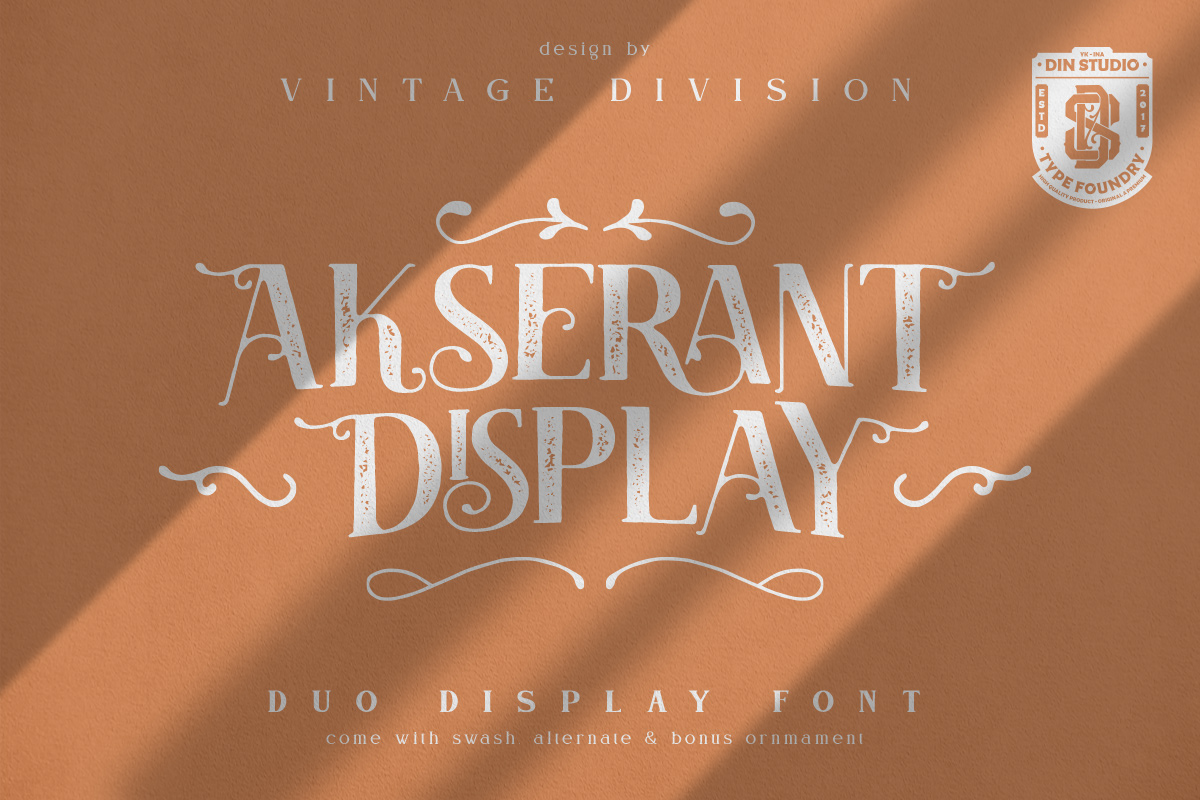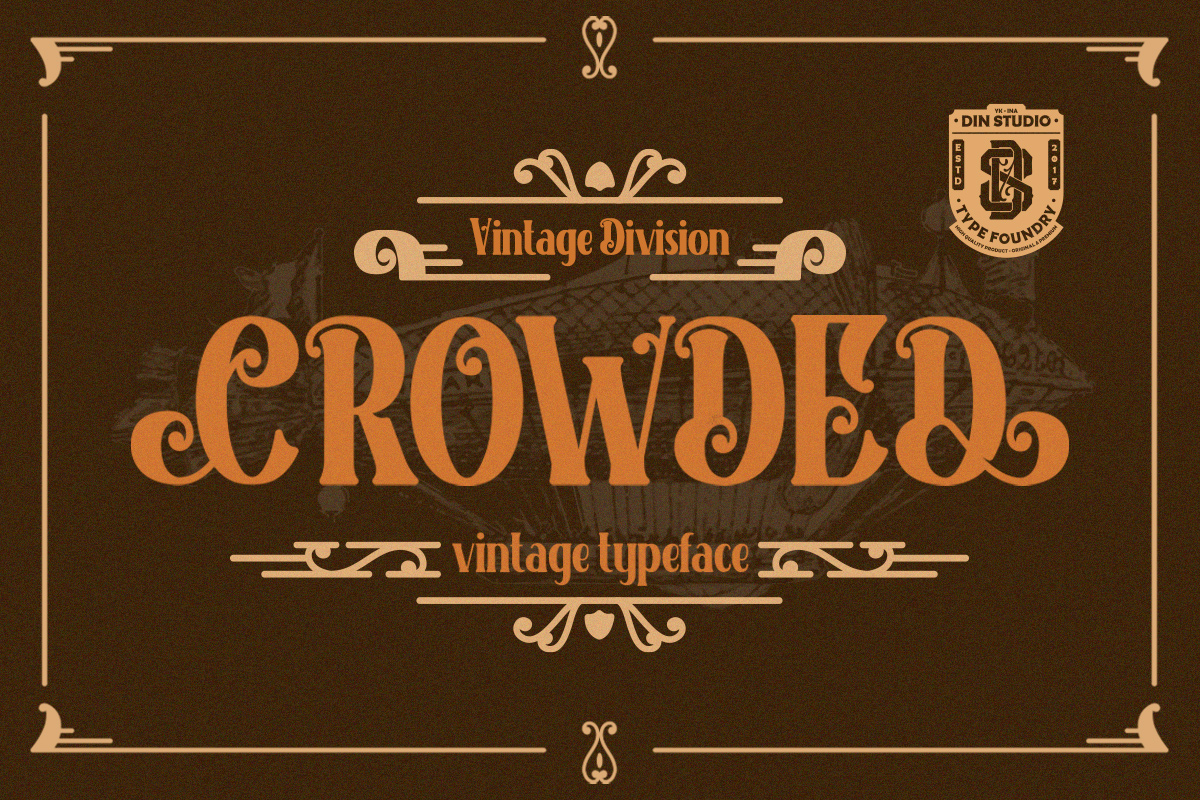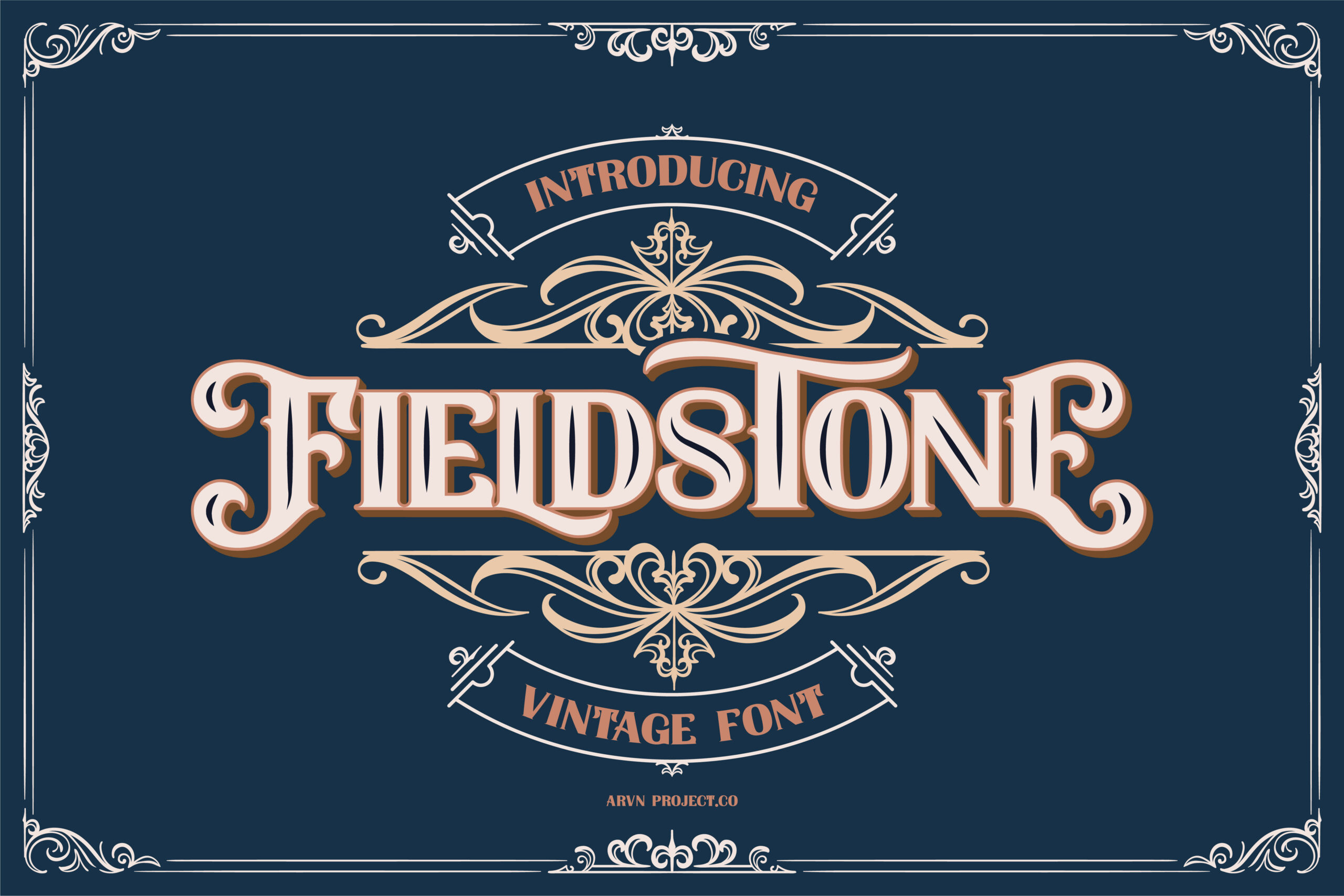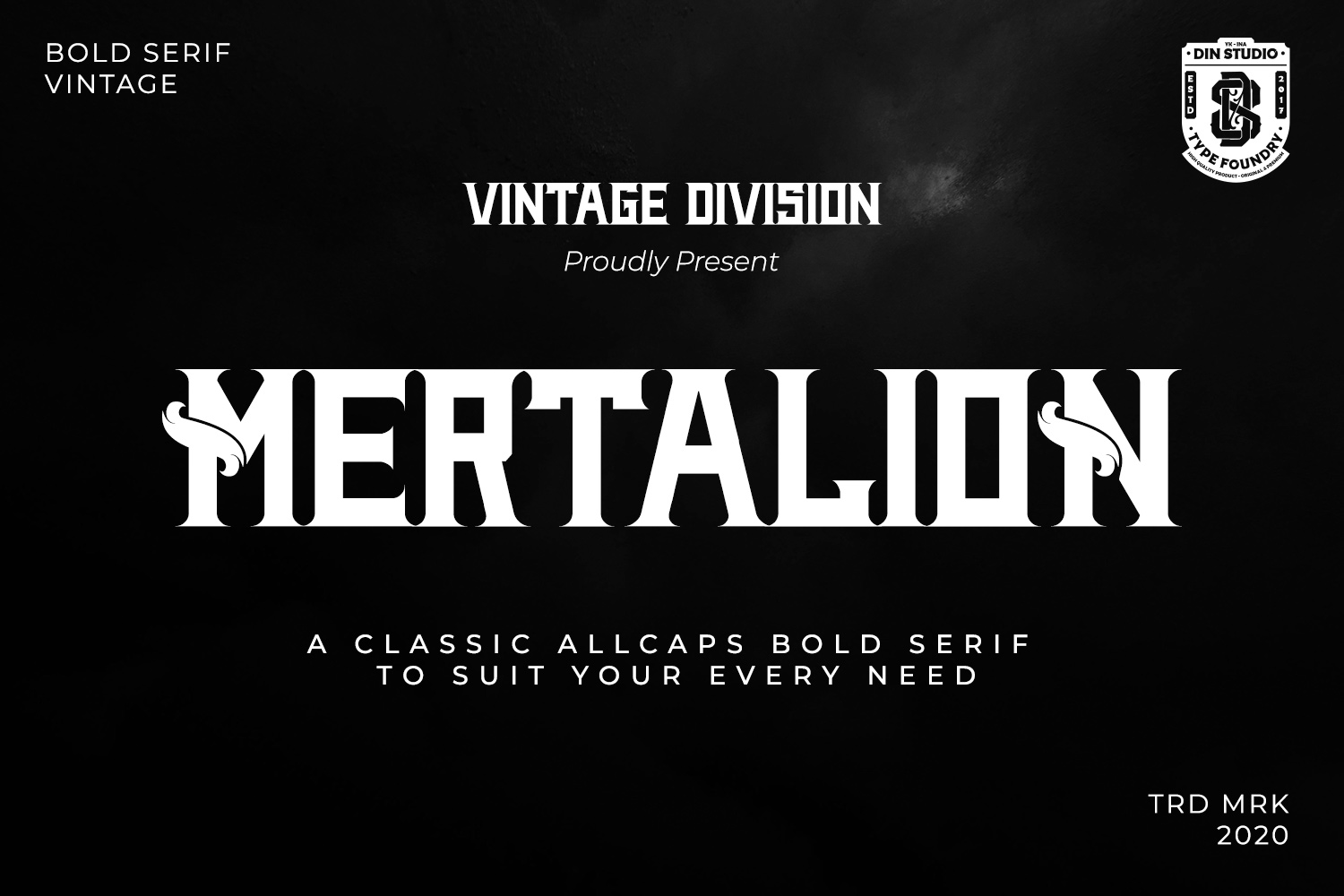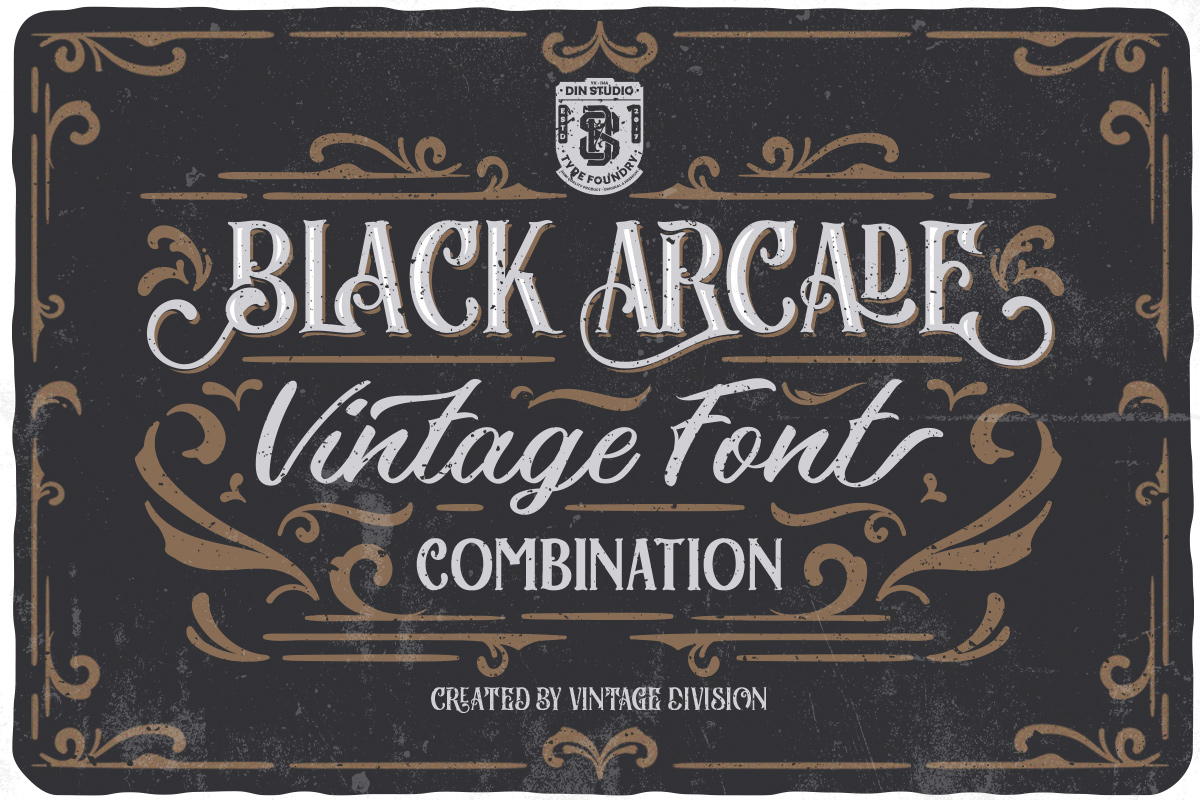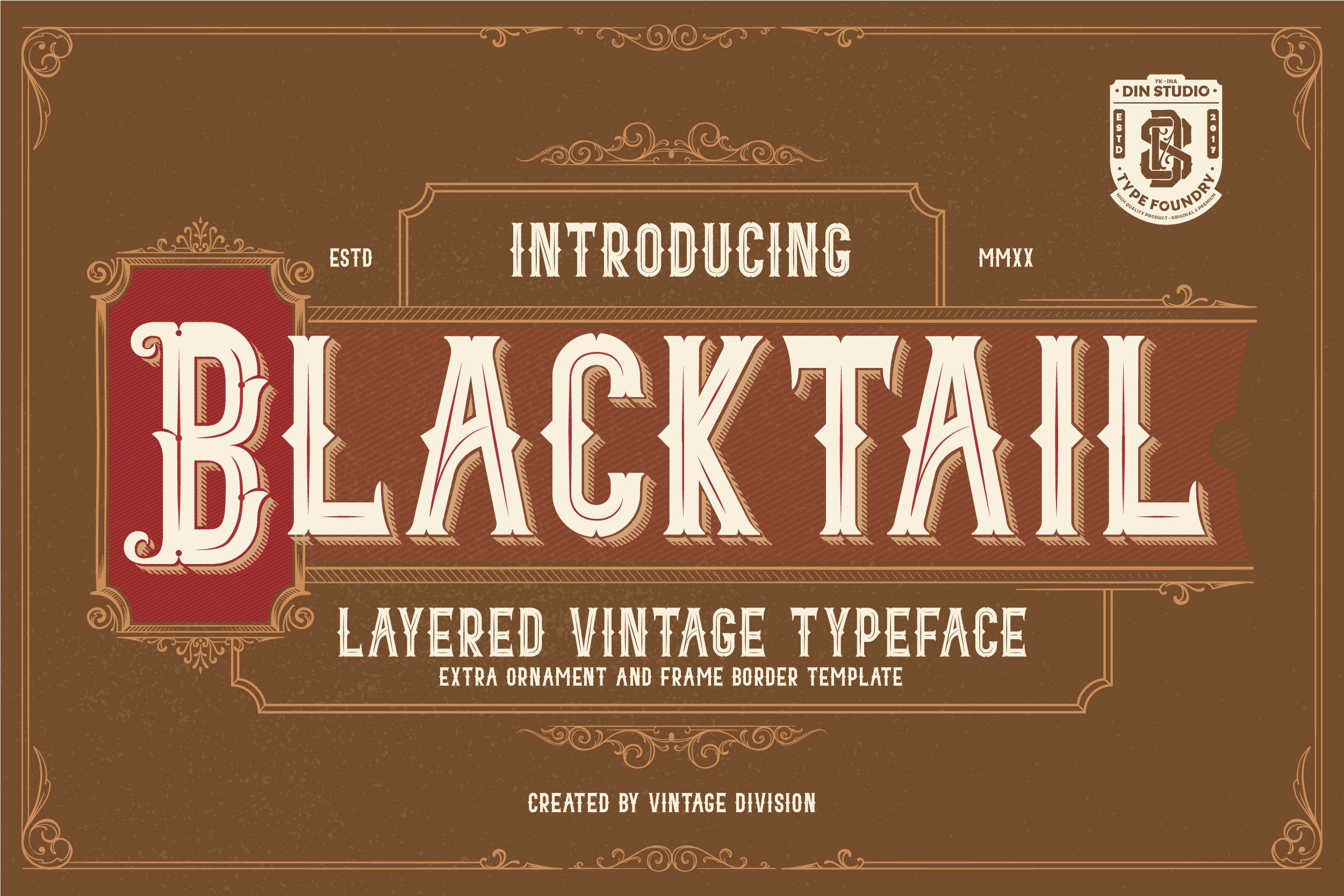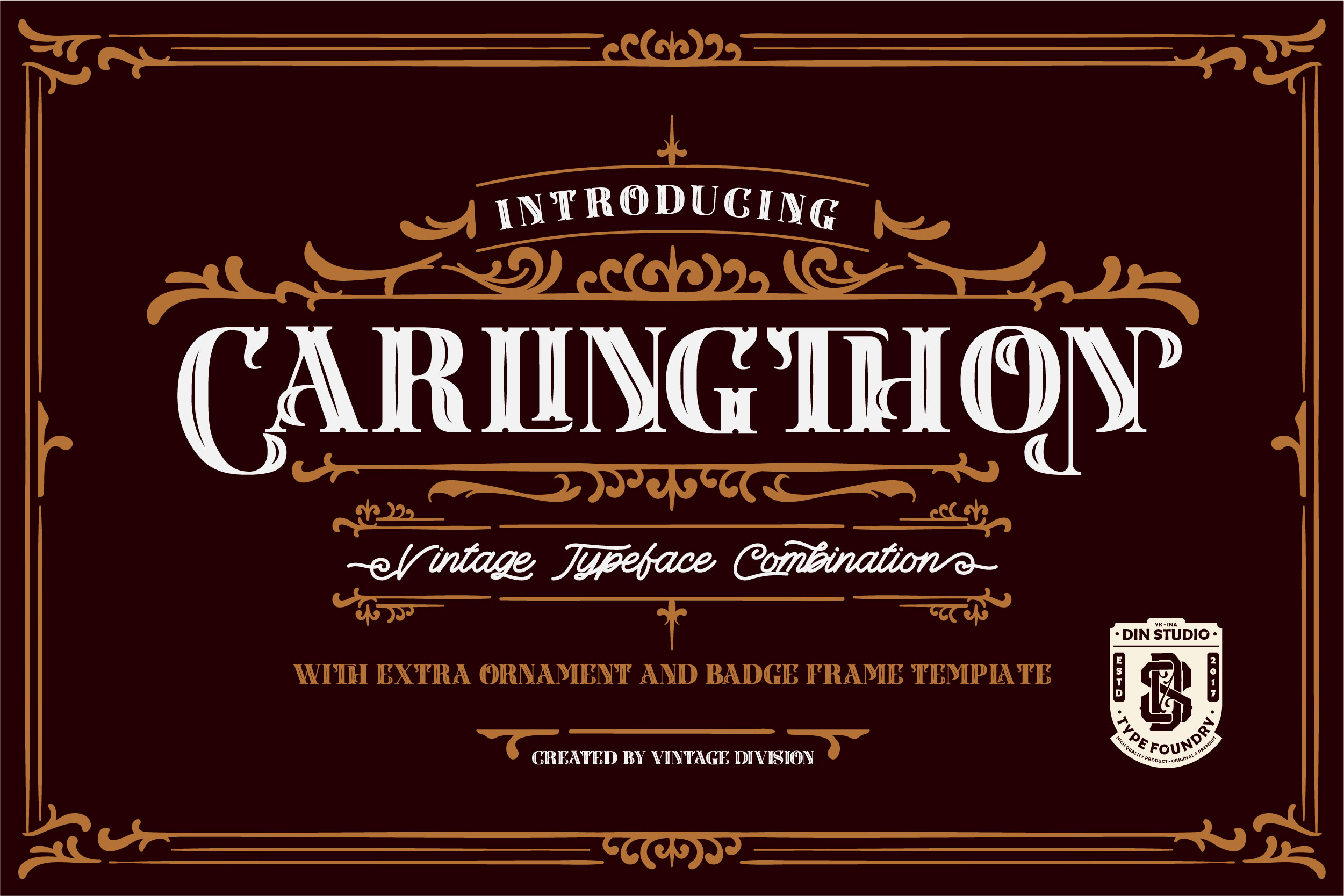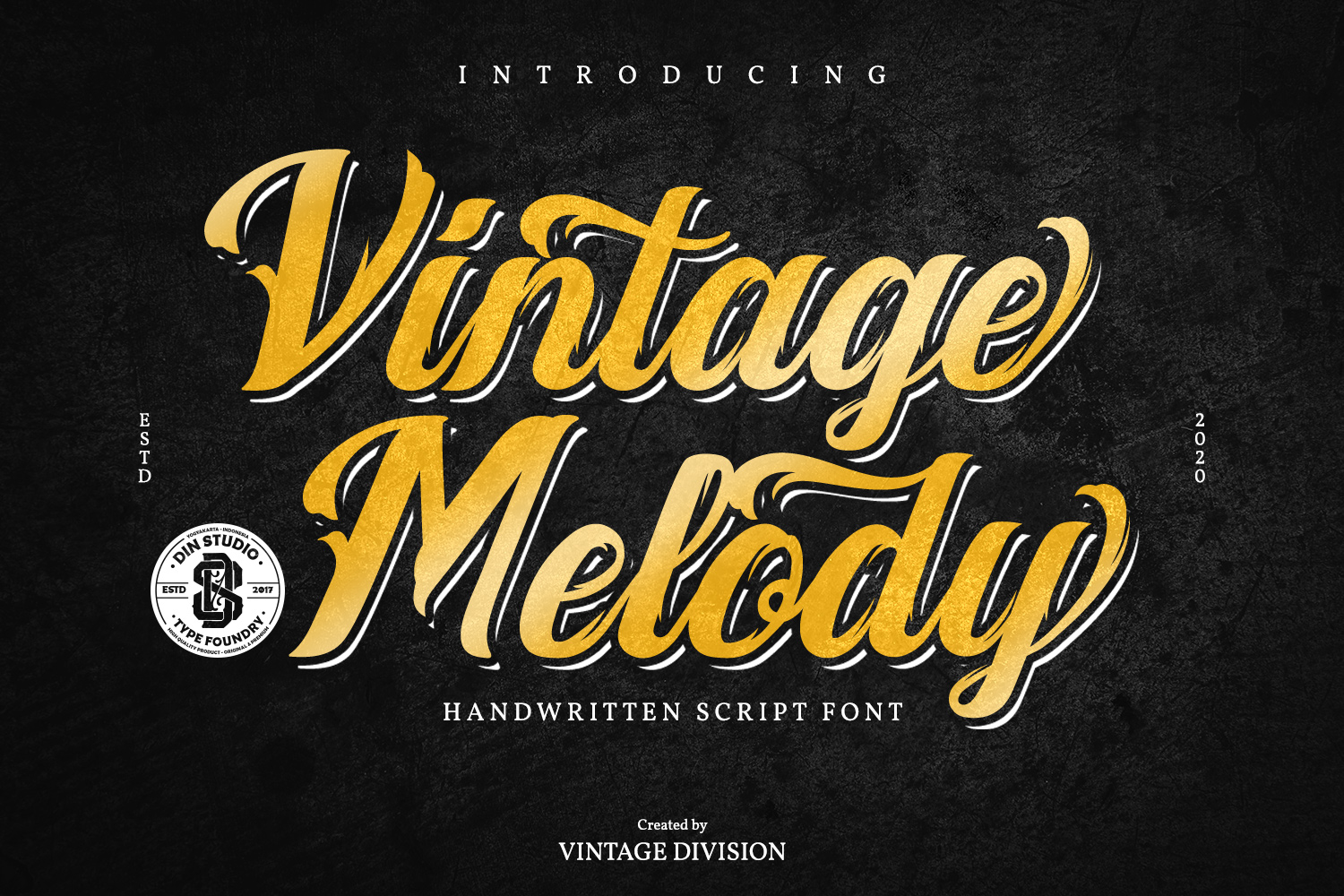
10 Best Vintage Font Recommendations for Classic Designs
What comes to your mind when you hear the word vintage? Do you automatically think of something classic, memorable, and with past-time aesthetic values? Indeed, the strong nostalgic feeling associated with vintage style is evident in its colors, shapes, and typography.
Vintage font displays a classic, nostalgic charm, drawing inspiration from the timeless styles of the 1920s to 1980s. This font stands out with its decorative, unique, and nostalgic letter shapes that capture attention. Moreover, the design exudes elegance, strength, and a captivating complexity, influenced by the era it draws inspiration from.
In the graphic design world, especially, vintage font continues to grow in popularity as it is applicable for various projects, including logos, posters, packaging, or social media posts. This type of font evokes a distinct personality in a design, strengthening the visual identity and bringing an authentic, warm, and nostalgic mood.
A vintage font is ideal for designs that embrace timeless, classic, and cultural themes. From rustic-themed café branding to vibrant 1980s concert posters and handmade product packaging, vintage fonts bring your designs to life, offering them personality and charm.
So, if you’re seeking inspiration, we’ve compiled a list of the top ten vintage font recommendations to help you reinforce your classic design appearance. Let’s get started!
Akserant Display
Vintage Font
First, we have Akserant Display. It is a vintage serif font. Its decorative handwriting style is highly legible, making it ideal for luxurious, classic posters, magazine covers, name cards, and logos. Furthermore, this font includes ligatures, swashes, and alternates to help you improve your designs.
Black Arcade
Next up is Black Arcade. Black Arcade is a vintage font that has five styles and a bold, striking appearance. Uppercase, lowercase, multilingual support, ligatures, swashes, alternates, and bonus alternates are all features of this font. This font is suitable for news headlines, logos, music concert posters, pamphlets, branding materials, print media, editorial layouts, and much more.
Blacktail
Vintage Font
Blacktail is a timeless serif font that seamlessly blends classic elegance with a strong, masculine style. This font showcases a timeless retro style with its bold letters, crisp edges, and elegant design. Furthermore, the font offers 4 distinct styles, each beautifully complemented by ornaments and illustrations that elevate its overall appeal.
Blacktail is perfect for creating captivating branding, eye-catching logos, stylish labels for beverage products, trendy barbershop designs, and nostalgic vintage posters. Not only that, the capital letters are perfect for creating striking headlines.
Carlingthon
Vintage Font
Carlingthon is a vintage font combination. This font showcases stunning details and elegant curves, evoking the charm of classic typography from a bygone era. Carlingthon stands out with its neat script and serif forms, exuding an elegant and classy vibe. Moreover, the classic and timeless ambiance showcased is perfect for designs aiming to convey a lasting impression or evoke nostalgia.
This font comes with bonus ornaments, and certain letter variants showcase decorative accents that impart a unique and timeless charm.  This versatile font, featuring a perfect blend of uppercase and lowercase letters, is perfect for a wide range of projects, including titles, logos, posters, flyers, branding materials, print media, and editorial layouts.
Fieldstone
Introducing Fieldstone, a charming vintage font brimming with character. The vintage vibe exudes strength and elegance, making it perfect for a variety of design applications, from branding and lettering to T-shirts and beyond. The elegant and timeless design elements of Fieldstone are what truly set this font apart.
Additionally, Fieldstone offers a variety of captivating features, including ligatures, swashes, and alternates. This font enhances your design with a variety of additional ornaments for a more captivating look. Besides that, Fieldstone performs well in supporting multilingual use, making it a highly functional choice for global projects.
Vintage Melody
We also have Vintage Melody. This is a vintage font with an elegant handwritten style and a very attractive letter appearance, specially made for the branding needs of professional projects. The symmetrical and clean letter structure makes it easy to read and still look professional. This vintage font has stylistic features, ligatures, and swashes that are suitable for branding, merchandise, wedding invitations, beauty product labels, classical music posters, and promotional media that require a nostalgic touch.